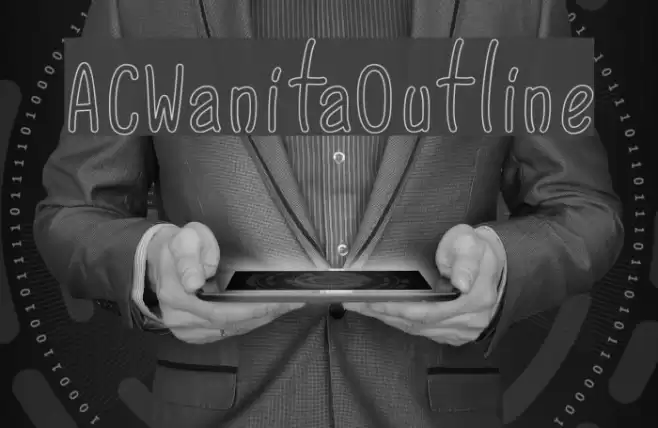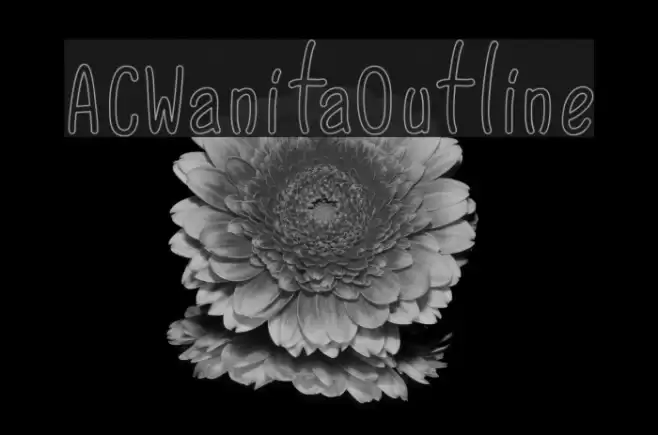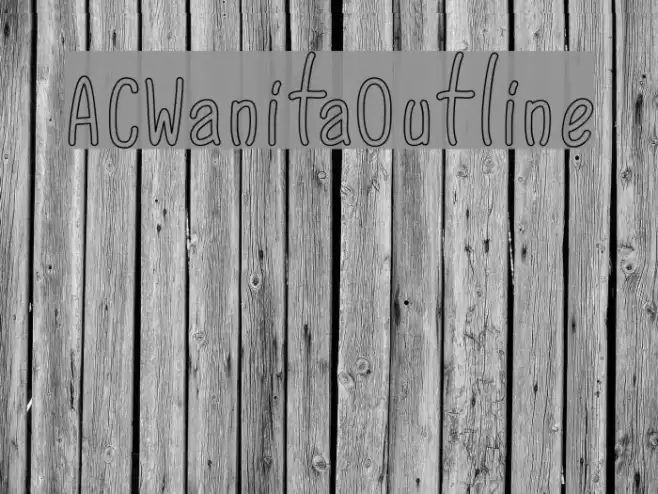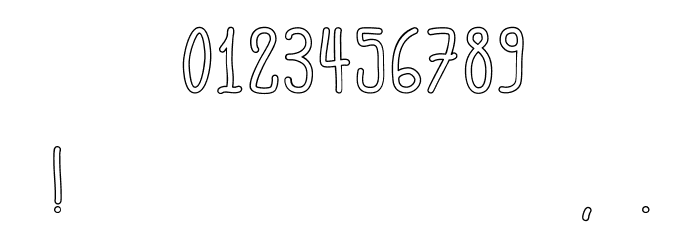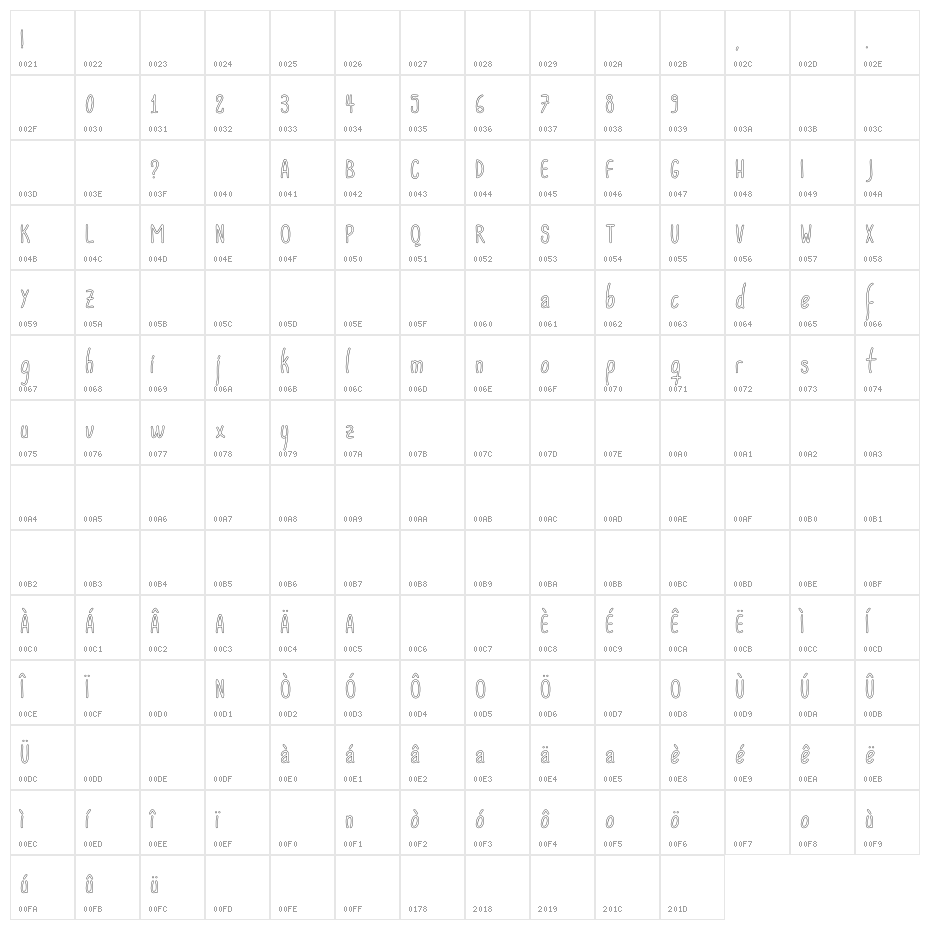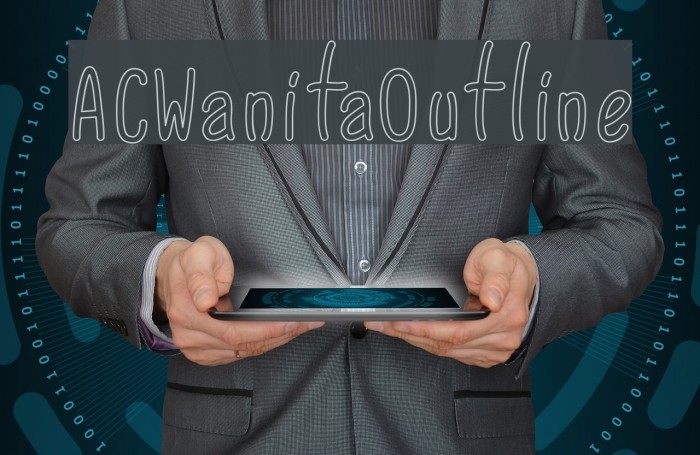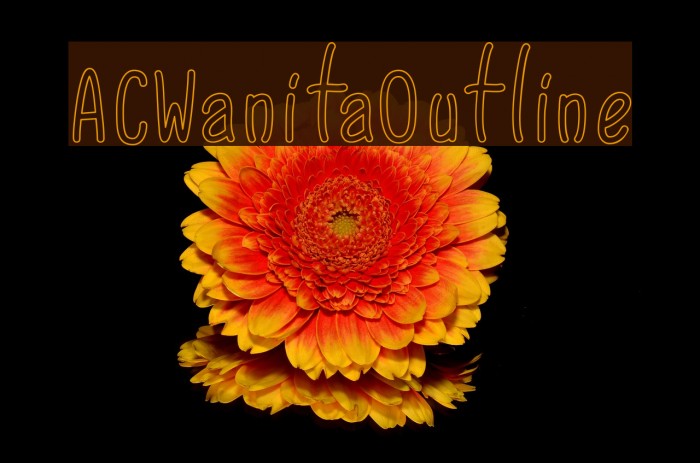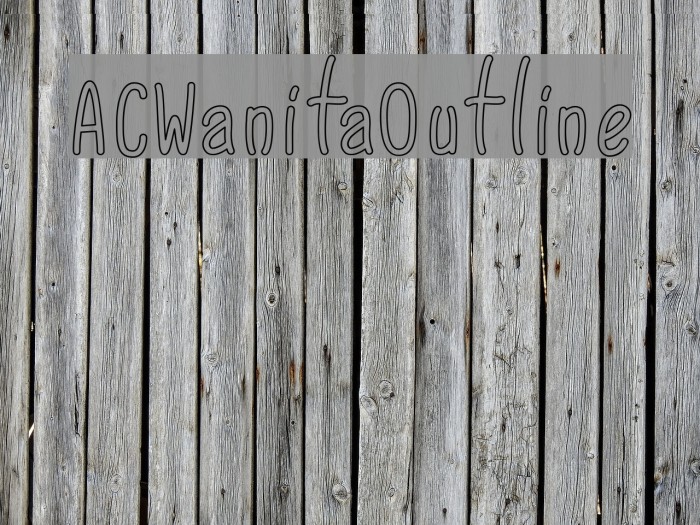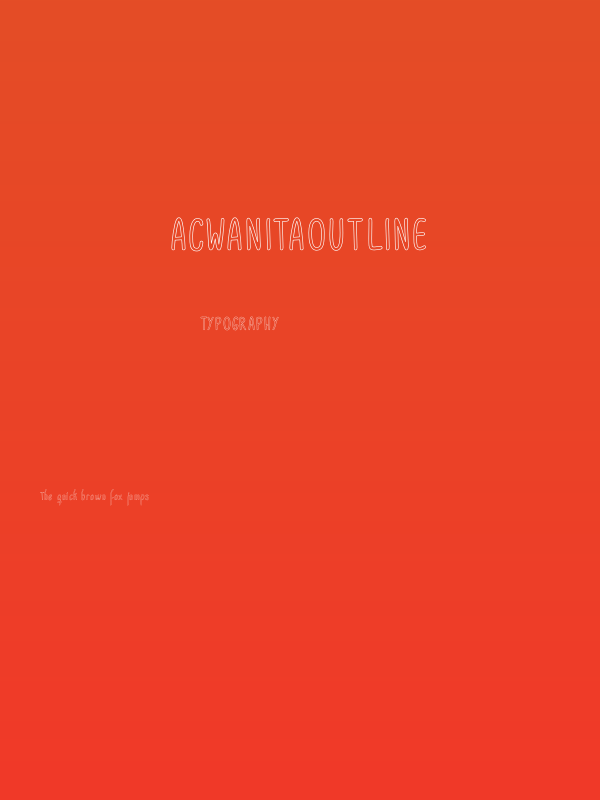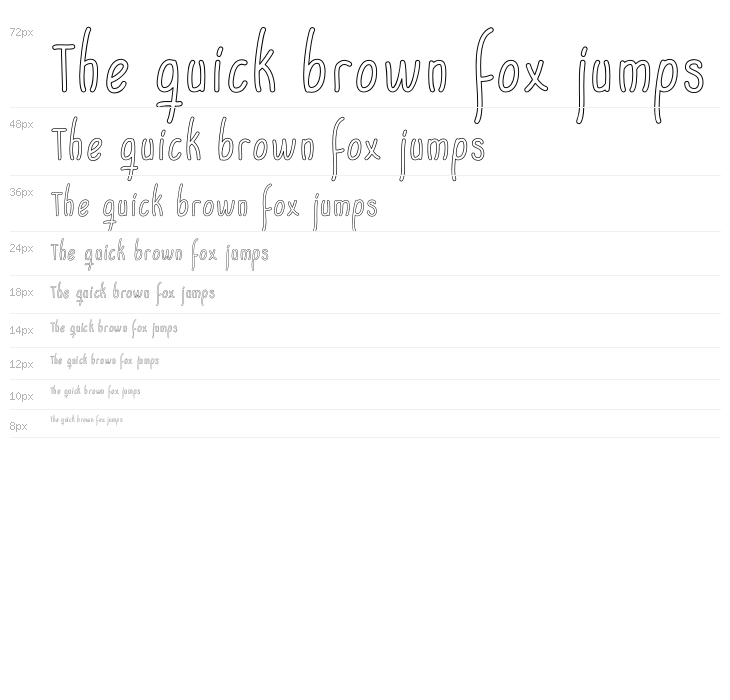
ACWanitaOutline Font
ACWanitaOutline Description
This font features a playful and whimsical outline style, characterized by its hand-drawn appearance. The letters are crafted with a consistent stroke width, giving them a uniform look while maintaining a casual and informal vibe. The uppercase and lowercase letters are well-proportioned, with rounded edges that add to the font's approachable and friendly feel. The numerals and special characters are designed to match the overall aesthetic, ensuring a cohesive look across all text elements. This font is ideal for projects that require a touch of creativity and fun, making it suitable for children's books, playful branding, or artistic posters.
A playful, hand-drawn outline font with a whimsical and informal style from Handwritten fonts.
- Proposed Projects: Children's books, playful branding, artistic posters, casual invitations.
- Overall Style: Whimsical, Playful